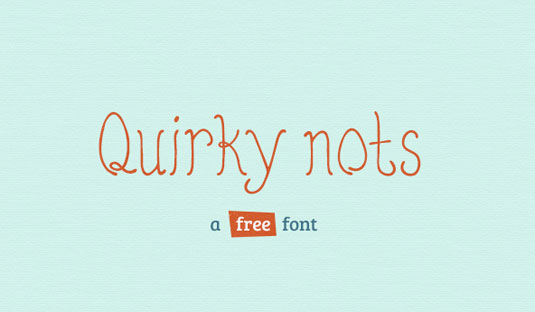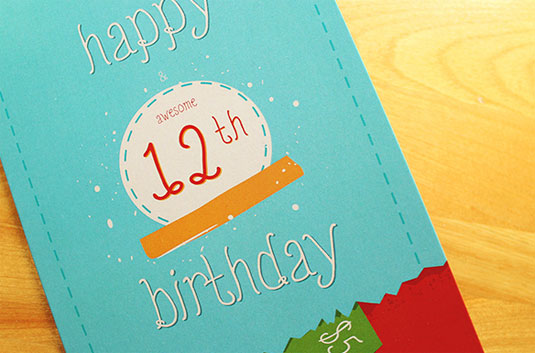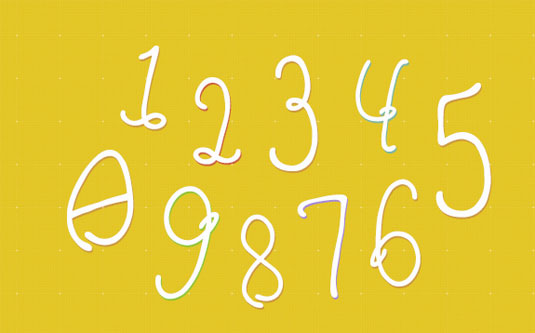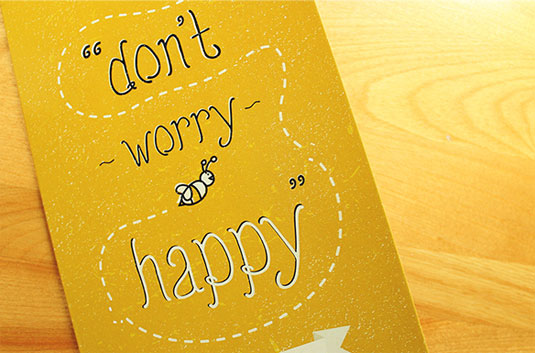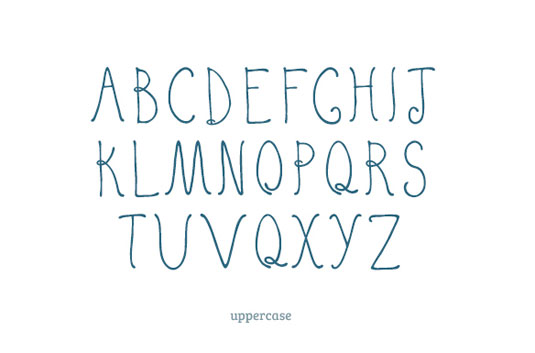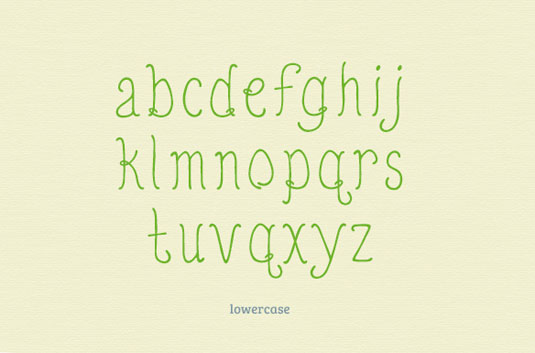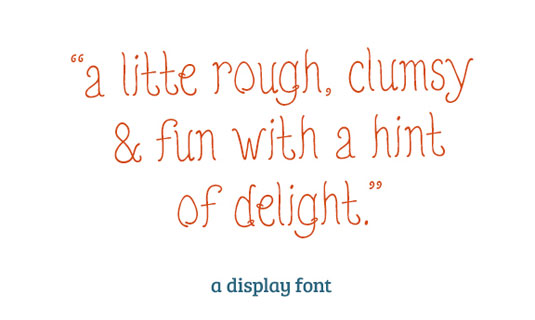
Font of the day: Quirky Nots
Quirky Nots by Amit Jakhu
Toronto based typographer Amit Jakhu created this fun and playfully unique font for his Typography 6 class. He decided to release it for free, as he wouldn't have further developed it after finishing college and we couldn't thank him enough!